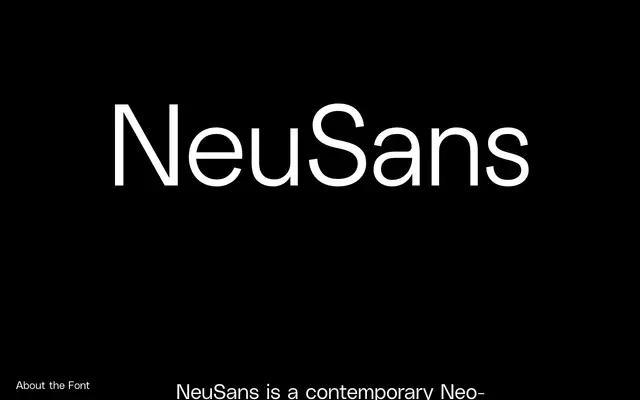
NeuSans
A neo-grotesque sans in seven weights with italics, positioned as a more characterful alternative to standard Swiss typefaces.
Fourteen styles span Light to Black with matching italics, covering the range expected of a workhorse layout face. The foundry pitches it as a middle ground between geometric rigour and organic warmth, distinguishing it from the cooler neutrality of Helvetica or Univers. It suits editorial and branding work where a clean sans is needed but strict Swiss austerity feels too impersonal.
Described explicitly as a Neo-Grotesque by the foundry, combining geometric discipline with organic fluidity in the tradition of Swiss sans-serifs but with softened, more characterful forms.